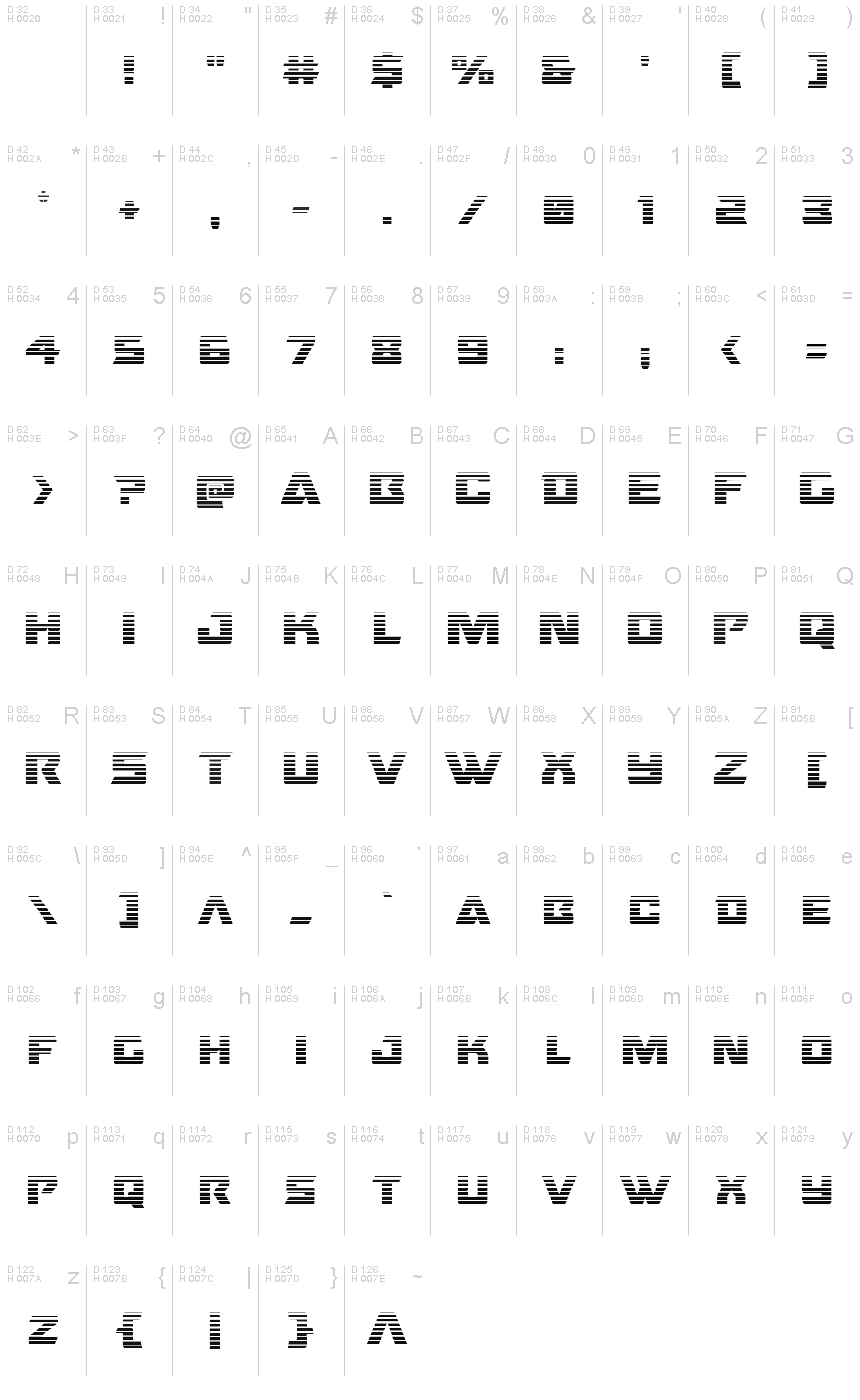
Oceanic Drift Gradient Regular
Oceanic Drift Gradient Regular is a captivating display font that exudes a futuristic allure. Designed by Daniel Zadorozny, this bold and expanded typeface boasts a striking gradient effect, creating a mesmerizing visual depth. The smooth, flowing lines and sharp, geometric edges blend seamlessly, reflecting a harmonious balance of organic and technological elements. This font's unique aesthetic lends itself exceptionally well to a variety of design applications, from bold headlines and eye-catching logos to immersive digital experiences and futuristic branding.
Its versatility and visual impact make Oceanic Drift Gradient Regular a versatile choice for designers seeking to elevate their work with a sense of contemporary elegance and technological sophistication.